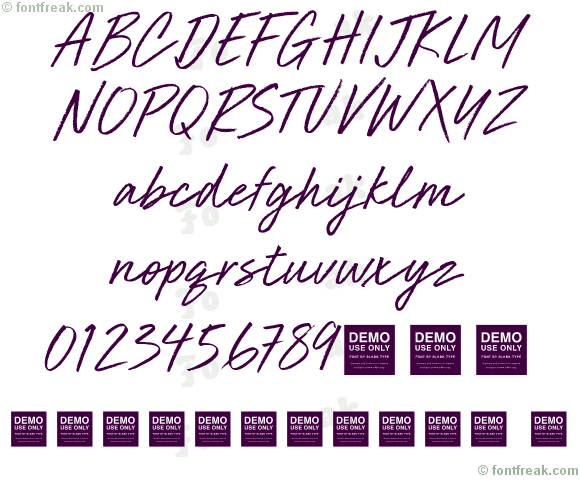
Easy Listening
About Easy Listening
The Easy Listening font by BLKBK Fonts is a charming handwritten script that captures the essence of casual elegance. This font features fluid strokes and gentle curves, making it an ideal choice for projects that aim to convey warmth and approachability. The stroke weight is consistent, providing a harmonious balance without overwhelming the viewer. The spacing between the letters is thoughtfully designed, allowing for easy readability while maintaining a playful aesthetic. This font exudes creativity and friendliness, thanks to its subtle decorative elements that add a personal touch without being overly ornate.
The Easy Listening font is particularly well-suited for a variety of creative applications. It shines in wedding invitations, where its romantic flair can evoke emotions and set the tone for a special day. Additionally, it works wonderfully for restaurant menus, lending an inviting feel that can enhance the dining experience. Graphic designers may find it perfect for branding projects aimed at small businesses, as it captures a laid-back vibe that appeals to a broad audience. Content creators can also utilize this font in social media graphics or blog headers, where its unique style can draw in viewers and encourage engagement.